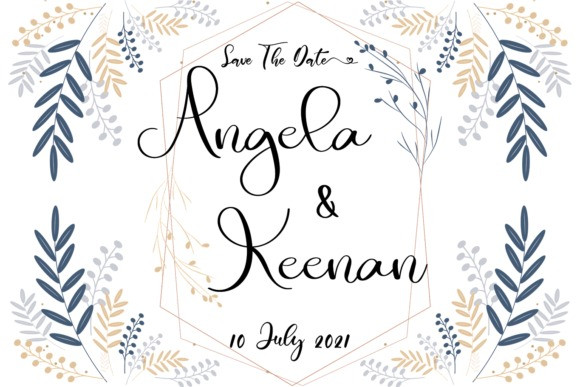
Brooklyn Script Font
Brooklyn is a dainty and flowing handwritten font.
Sweet and joyful, this font will be ideal for writing wedding invitations, cards or any other design that may need a romantic, personalized touch!